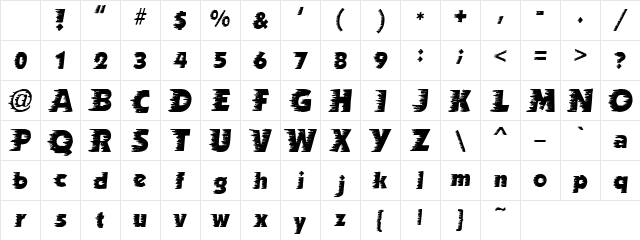
Complete AnniesWindy Semi-expanded glyph index. Displaying only characters natively supported by AnniesWindy Semi-expanded font.
AnniesWindy is a composed and adaptable typeface that performs quietly and consistently across a wide range of design contexts.